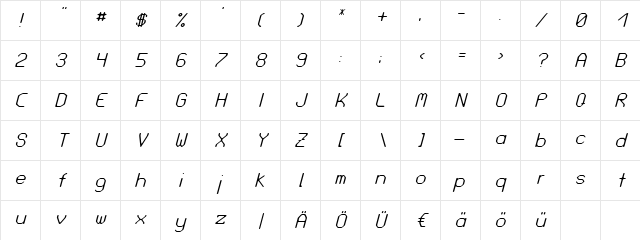
Love Parade italian
Style: italian
Love Parade Family
Love Parade italian
Design Context for Love Parade
Love Parade is a composed and adaptable typeface that performs quietly and consistently across a wide range of design contexts.